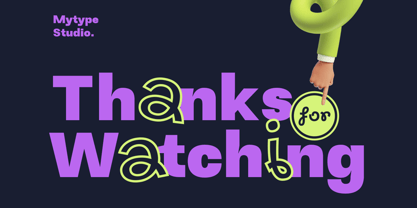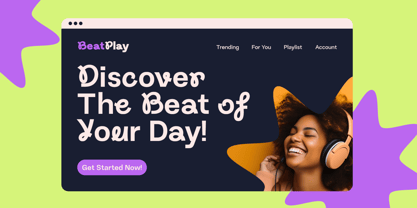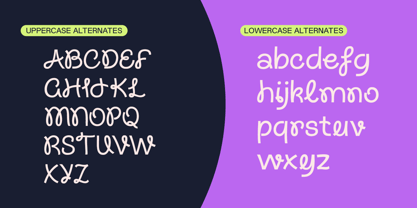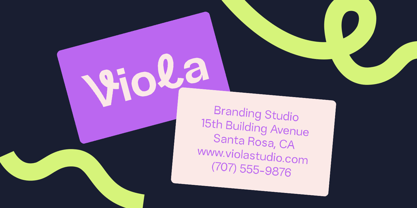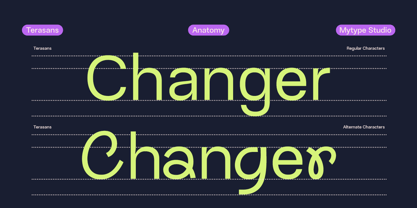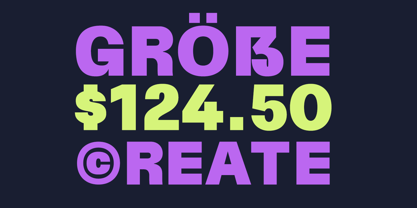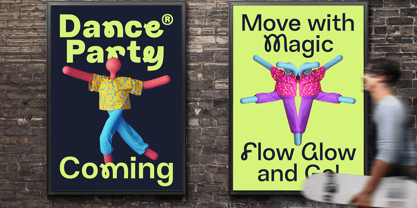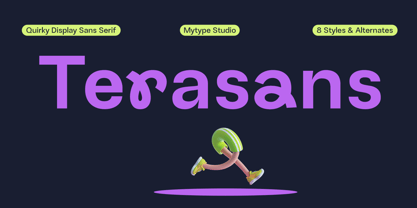
Terasans
Terasans is a contemporary sans-serif typeface designed for designers who demand both neutrality and character. Its clean, geometric letterforms are softened by subtle humanist influences, creating a versatile aesthetic that adapts effortlessly to tech startups, editorial layouts, or luxury branding.
Key design features include:
• Precision Geometry: Circular terminals and sharp angles ensure visual harmony.
• Dynamic Range: From airy Thin to assertive Black, each weight maintains readability across sizes.
• Functional Details: Extended language support, tabular figures, and stylistic alternates for custom typography.
Terasans shines in UI/UX design, packaging, and corporate communications, offering a timeless yet forward-thinking edge.